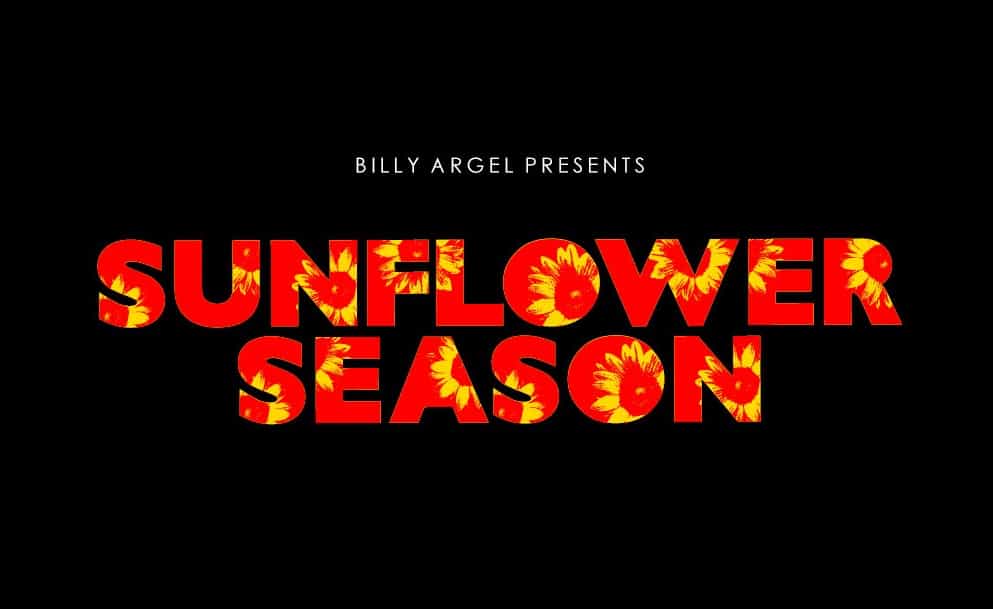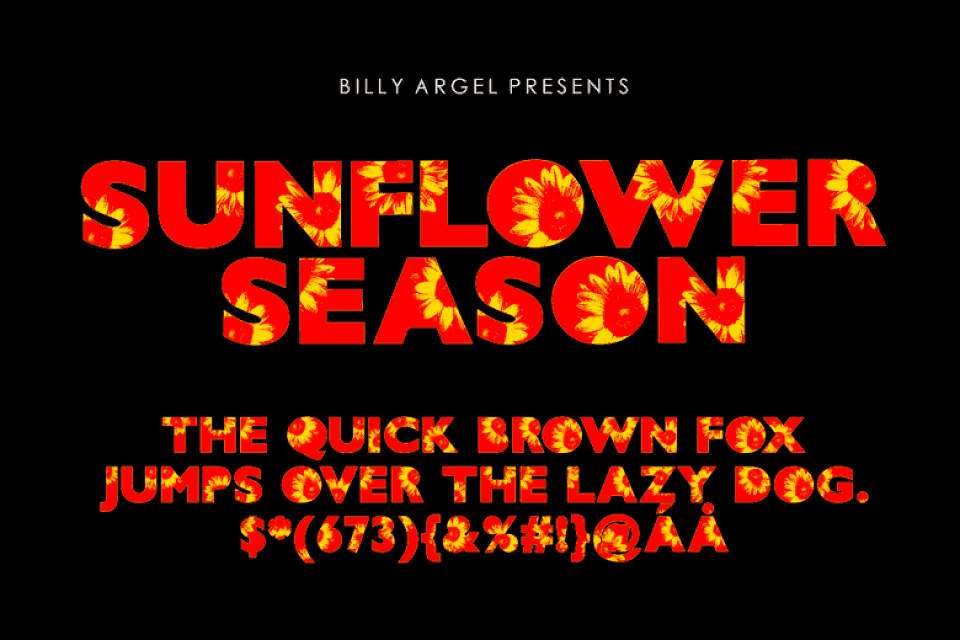
Sunflower Season Font
Discover Sunflower Season Font, part of the   Sans Serif Display collection—a versatile and unique font perfect for adding a personal touch to your projects. Download it for free and enjoy crafting designs with style, from invitations to social media posts. This font is available exclusively for personal use, giving you the freedom to create without limits. Unlock your creativity with Sunflower Season Font today!